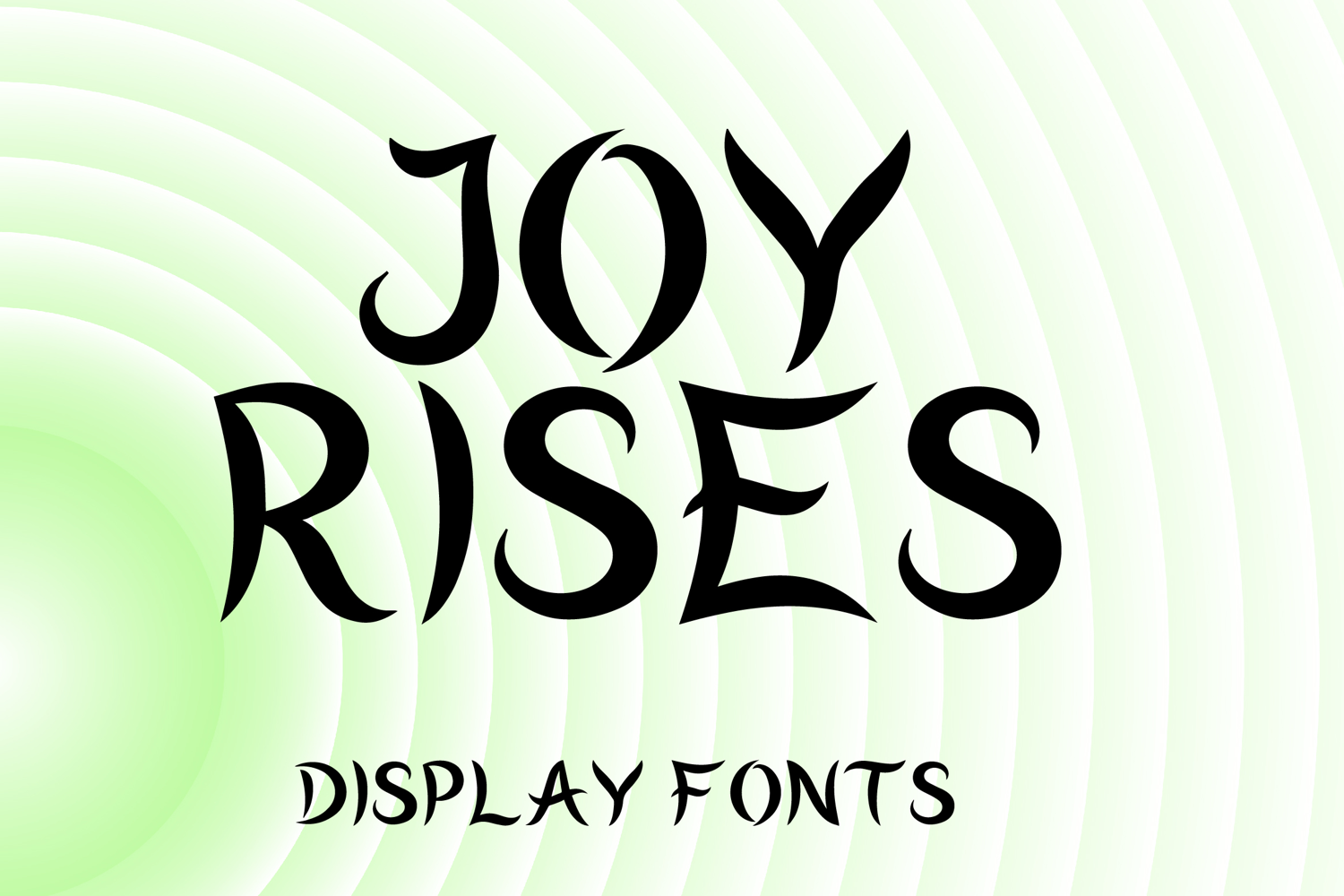
JOY RISES
JOY RISES is a dramatic decorative display font with a stylish vintage-inspired look and elegant artistic flair. Its uppercase letterforms feature sharp tapered strokes, flowing curves, and distinctive pointed terminals that create a bold, expressive, and eye-catching presence. Designed with uppercase letters A–Z and numbers 0–9, JOY RISES is perfect for branding, posters, packaging, logos, book covers, social media graphics, and creative projects that need a striking and memorable statement.